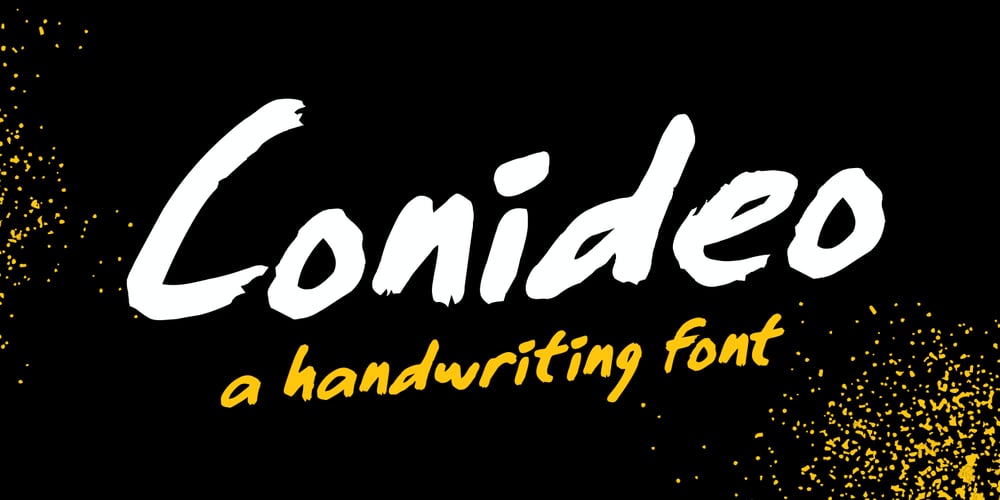
Conideo Font Family was designed by Muhammad Nazarudin and published by Niznaztype. Conideo contains 1 styles and family package options. Introducing a handwriting typeface. I called it Conideo. Conideocreated by hand and manualy. Each glyph have a unique likepainting technique.Conideo very comfortable to used for lettering tagline, headline,cover, tittle and design themes that take handwriting or drawingcharacters. Simple and natural style.You can apply it for any product such as hat, bag, book cover, mug,product design etc.Conideo consist of uppercase, lowercase, numeral, punctuation andmultilingual language. And also available in two styles, regular anditalic.Please, enjoy it with Conideo, a new handwriting font.Thank a lot